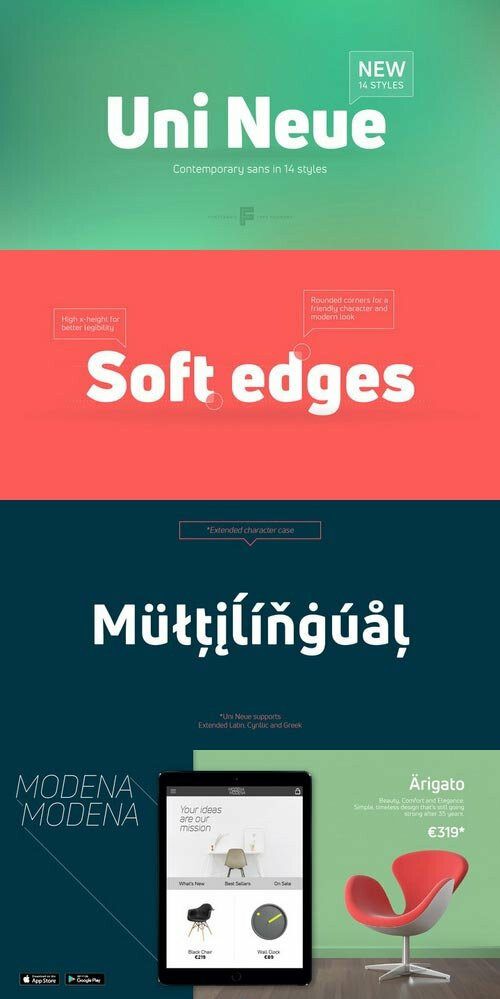
Uni Neue Font Family is the whole new redesigned version (remake) of Uni Sans – one of the most recognizable and signature font families of Fontfabric type foundry. From major changes like proportions, widths and thickness (weights) to the smaller details, this new family enables us to feel and understand the font at a completely new level.